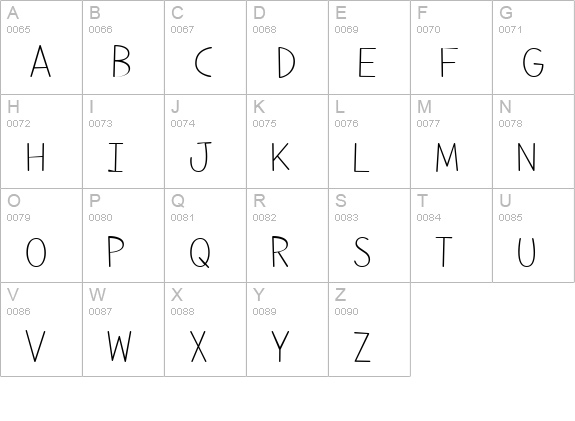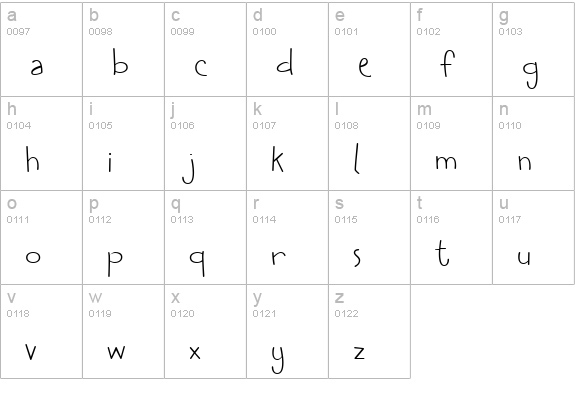
Cheddar Salad BTN Lt Font Details
Cheddar Salad BTN Lt font is a delightful and whimsical typeface that brings a touch of charm to any design project. With its playful curves and elegant strokes, this font is perfect for adding a fun and creative flair to your work. Whether you're creating invitations, posters, or branding materials, Cheddar Salad BTN Lt font is sure to make a statement. Best of all, this font is free to download at FontsMarket.com, making it accessible to all designers looking to add a unique and eye-catching touch to their projects. So why wait? Download Cheddar Salad BTN Lt font today and let your creativity shine!